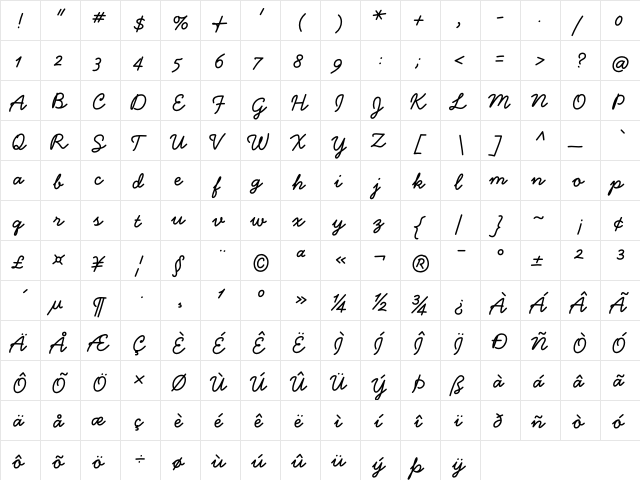
Handsome Pro Bold
| Designer | Nick Shinn |
Design Context for Handsome Pro Typeface
Handsome Pro brings a calligraphic fluidity to the page — its connecting strokes and expressive curves give it an unmistakably human quality. The heavy weight commands attention and anchors typographic hierarchies.
Font Pairing: Combine Handsome Pro with a simple geometric sans for maximum contrast — the tension between flowing curves and clean structure is a classic typographic pairing.
Pro Tip: Use Handsome Pro for short runs of text — names, titles, or taglines. Extended body copy in script faces tires the eye quickly.